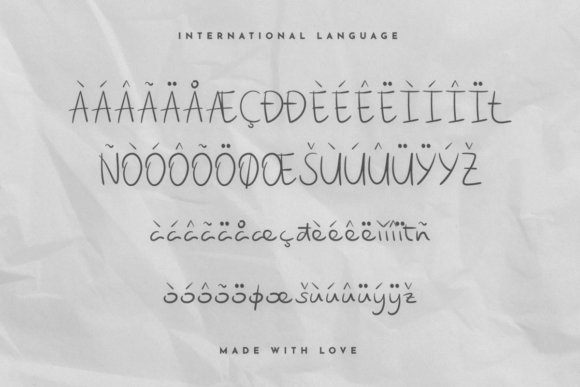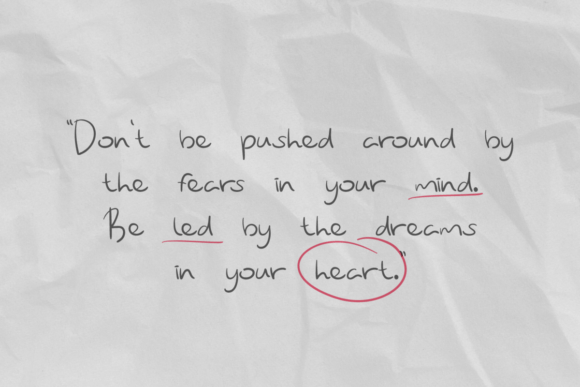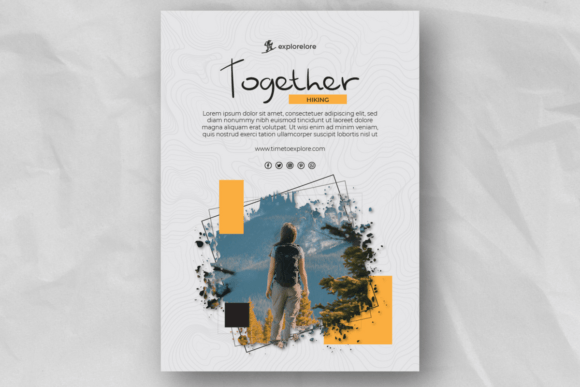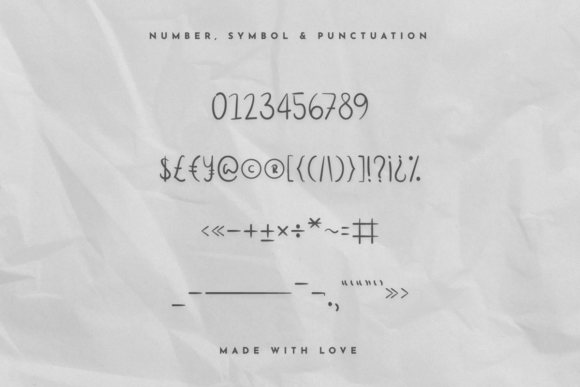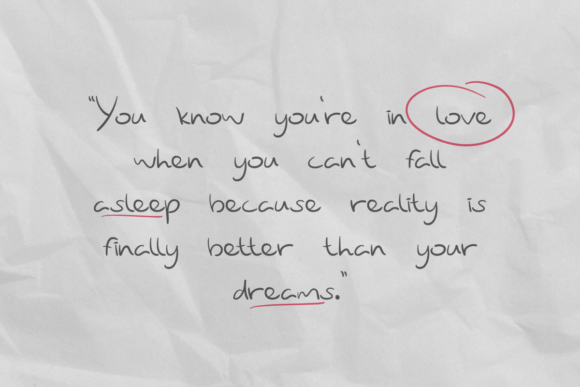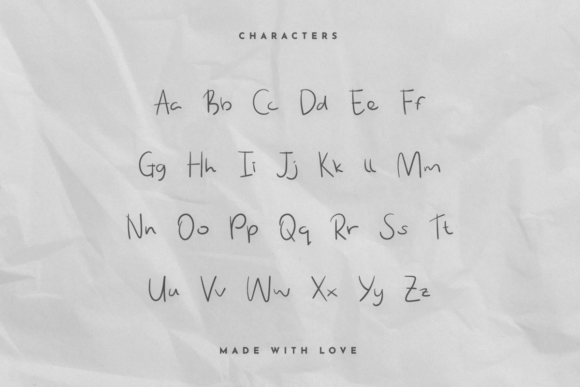
The Perfect Stroke: Discovering the Aatmika Font
Have you ever been stuck in front of a blank canvas, waiting for that perfect moment of inspiration to strike? The blank page stares back, and you’re left wondering where to begin. For designers, this moment is all too familiar. But what if I told you that there’s a font that can change all that?
Enter the Aatmika Font, a stunning calligraphy script font that brings elegance and sophistication to any design. With its flexible and beautiful lines and curves, this font is the perfect companion for your next creative project. Whether you’re crafting an invitation card, poster, or social media post, the Aatmika Font is sure to elevate your design to the next level. Its versatility and aesthetic appeal make it an invaluable asset for designers, and a must-have in any font collection.
- Unique Characteristics: Aatmika font features a clean, modern design with clear lines and open shapes, making it highly readable in both print and digital formats.
Aatmika Font Review
I recently had the chance to dive into the Aatmika font, and I must say it’s an interesting find. ✨ One of the things that stands out is its unique aesthetic – a blend of traditional and modern elements that sets it apart from other sans-serif fonts. The font’s subtle texture and slight irregularities give it a human touch, making it perfect for projects that require a bit of character.
- ✨ Unique blend of traditional and modern elements
- ✨ Subtle texture and slight irregularities give it a human touch
- ✨ Suitable for projects that require a bit of character
However, there are some limitations to consider. ⚠️ The font’s legibility can be a bit of an issue, especially at smaller font sizes. Additionally, the font’s range is somewhat limited, making it less suitable for projects that require a wide range of font weights or styles.
- ⚠️ Legibility can be an issue at smaller font sizes
- ⚠️ Limited range of font weights and styles
Overall, I’d say the Aatmika font is a solid choice for projects that require a unique and characterful font. While it may not be the best fit for every project, it’s definitely worth considering for the right application.
The Aatmika Font is ideal for:
- Creating titles and headings for designs and presentations.
- Adding a touch of elegance to documents and reports.
- Designing custom typography for branding and marketing materials.